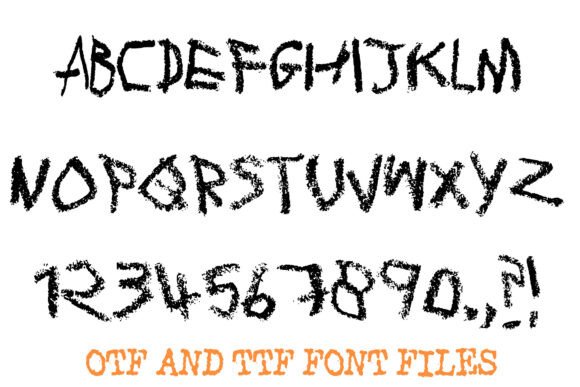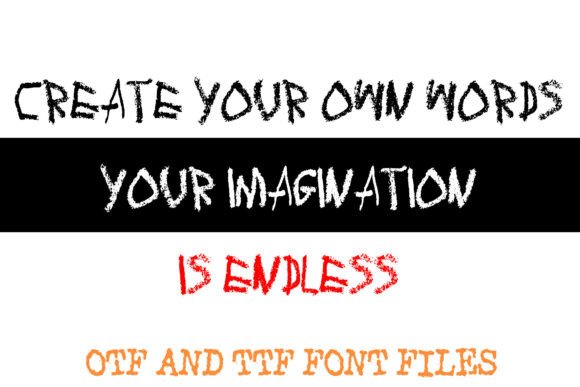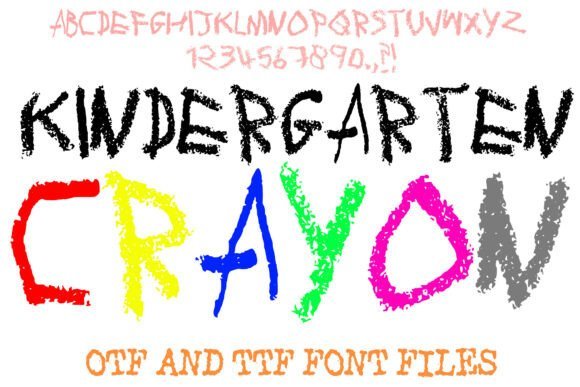
Introduction to Kindergarten Crayon Font
Add a touch of innocent charm and raw, tactile texture to your designs with the Kindergarten Crayon Font.
This typeface was meticulously handcrafted using real crayons to capture a genuine, grainy wax finish that looks like it was drawn right on a school desk With its irregular baseline and charmingly imperfect, slightly messy strokes, it provides an authentic β€œchild-written” aesthetic that feels warm and personal.
Key Features of Kindergarten Crayon Font
Why Choose Kindergarten Crayon Font?
Kindergarten Crayon Font offers exceptional quality and versatility, making it a valuable addition to your design toolkit. Whether you’re creating for personal projects or commercial use, Kindergarten Crayon Font delivers professional results.